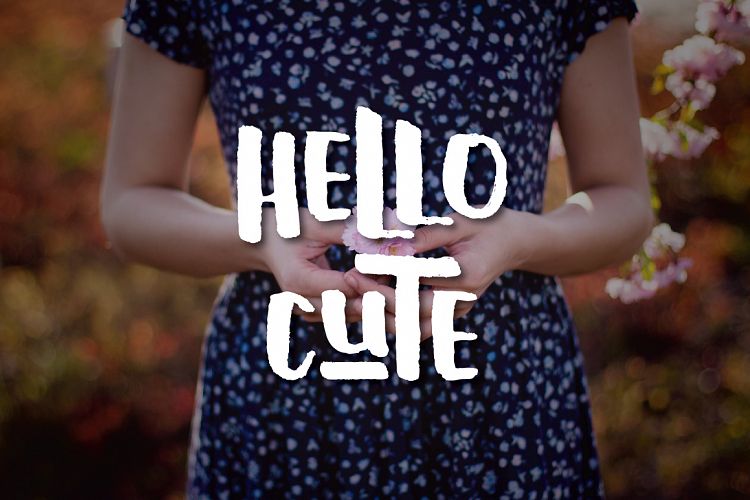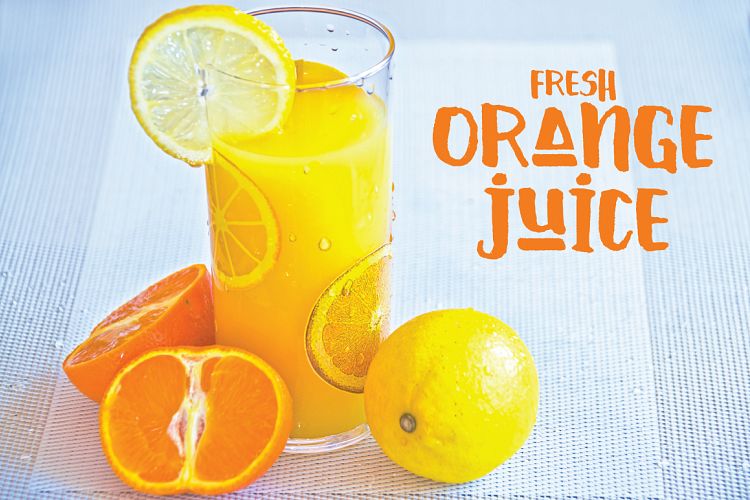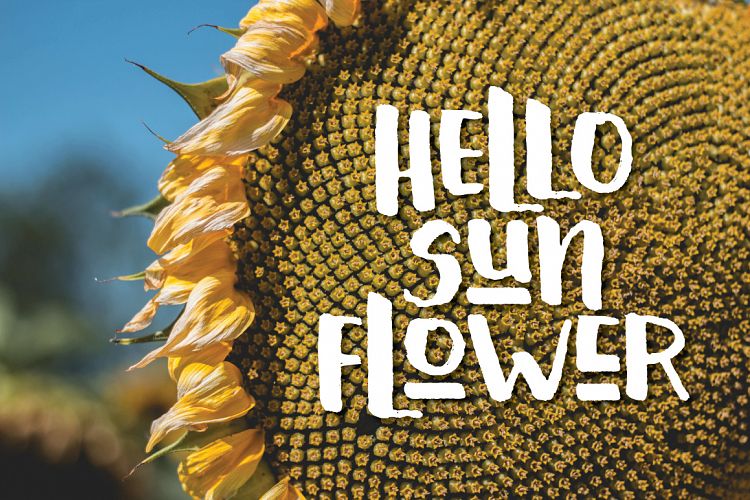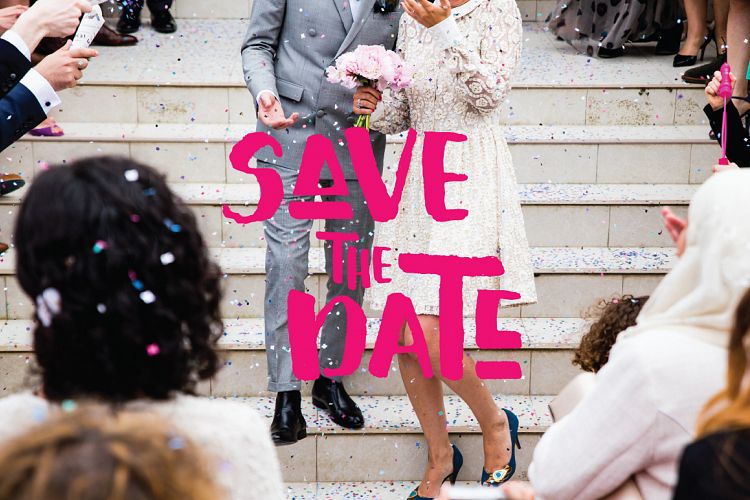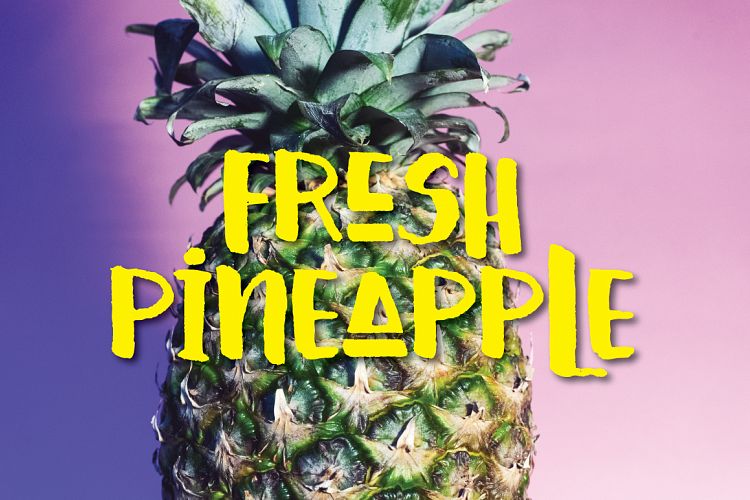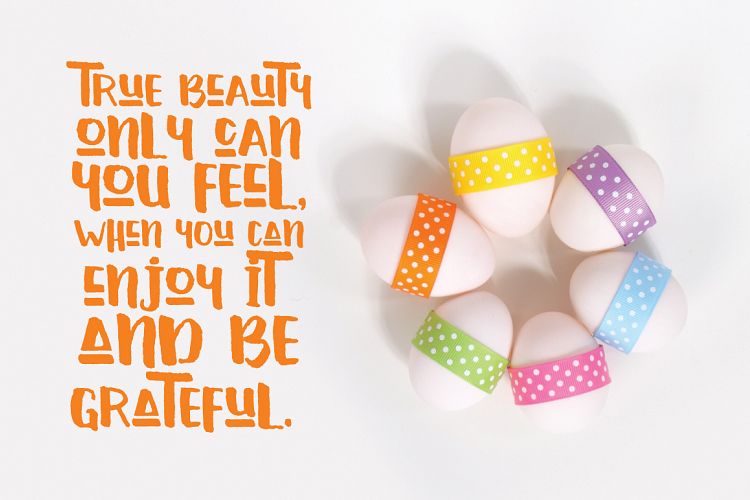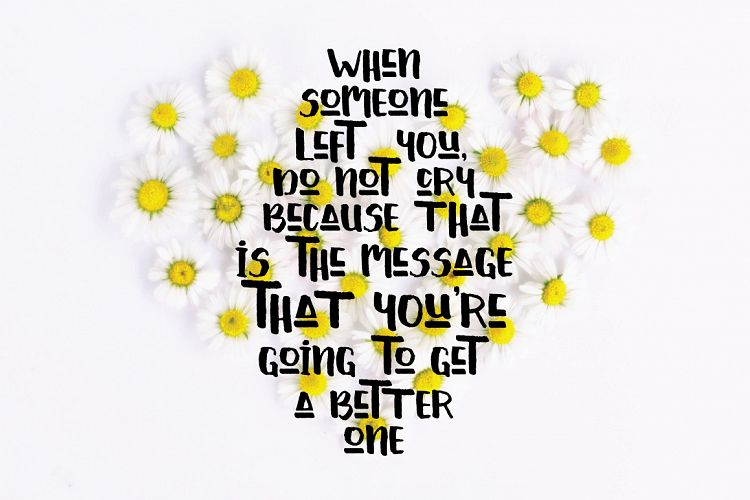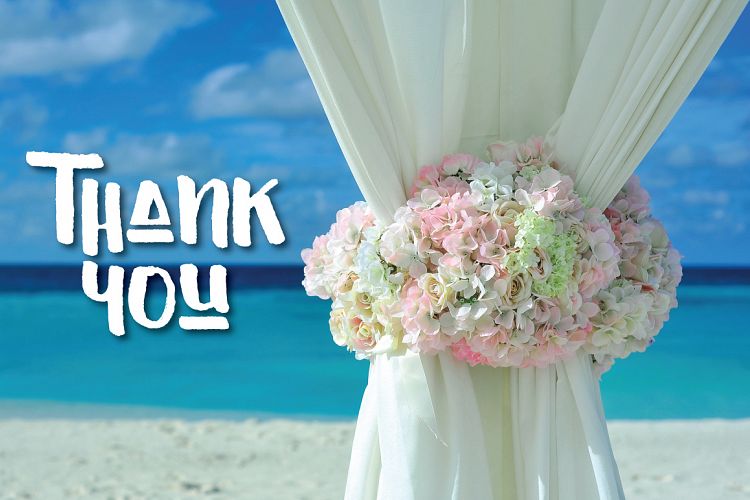
Hello Cute Font
About Hello Cute Font
Hello Cute is an modern, fresh font. It works great for many different types of projects, from branding and marketing to personal projects.